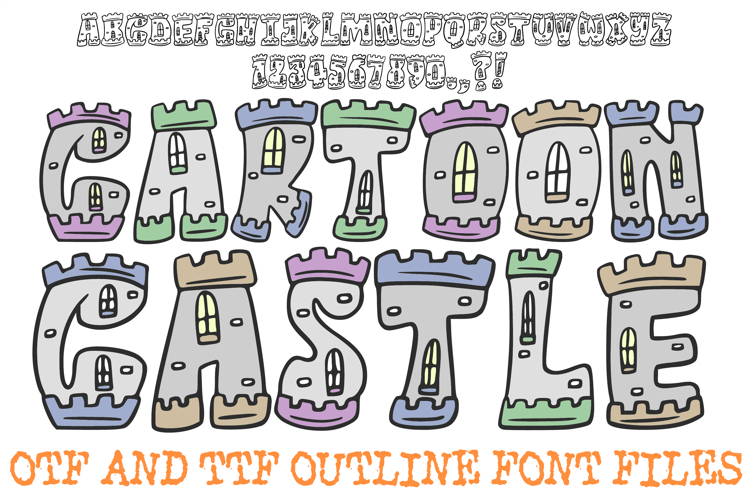
The Cartoon Castle Font is a majestic, medieval-themed display typeface that transforms every letter into a fortified stone tower. Featuring iconic battlements, arched windows, and sturdy stonework details, this font is the ultimate storytelling tool for fantasy book titles, princess or knight-themed birthday invitations, and whimsical history classroom decor.
Each character is meticulously hand-drawn with a "storybook" aesthetic, blending blocky, defensive silhouettes with charming illustrative touches like multi-colored turrets and stone textures. Whether you are designing for a fairytale brand, creating playful nursery art, or working on custom RPG game assets, the Cartoon Castle Font delivers an enchanting, artisan-crafted feel that turns any project into a royal adventure.
Clean Illustration Aesthetic: The bold black outlines are perfect for "coloring book" style projects, sublimation, or layering over vibrant stone-grey or jewel-tone palettes.
Whimsical & Historic: The hand-drawn, slightly irregular lines provide a friendly, organic personality that captures the magic of a cartoon kingdom.